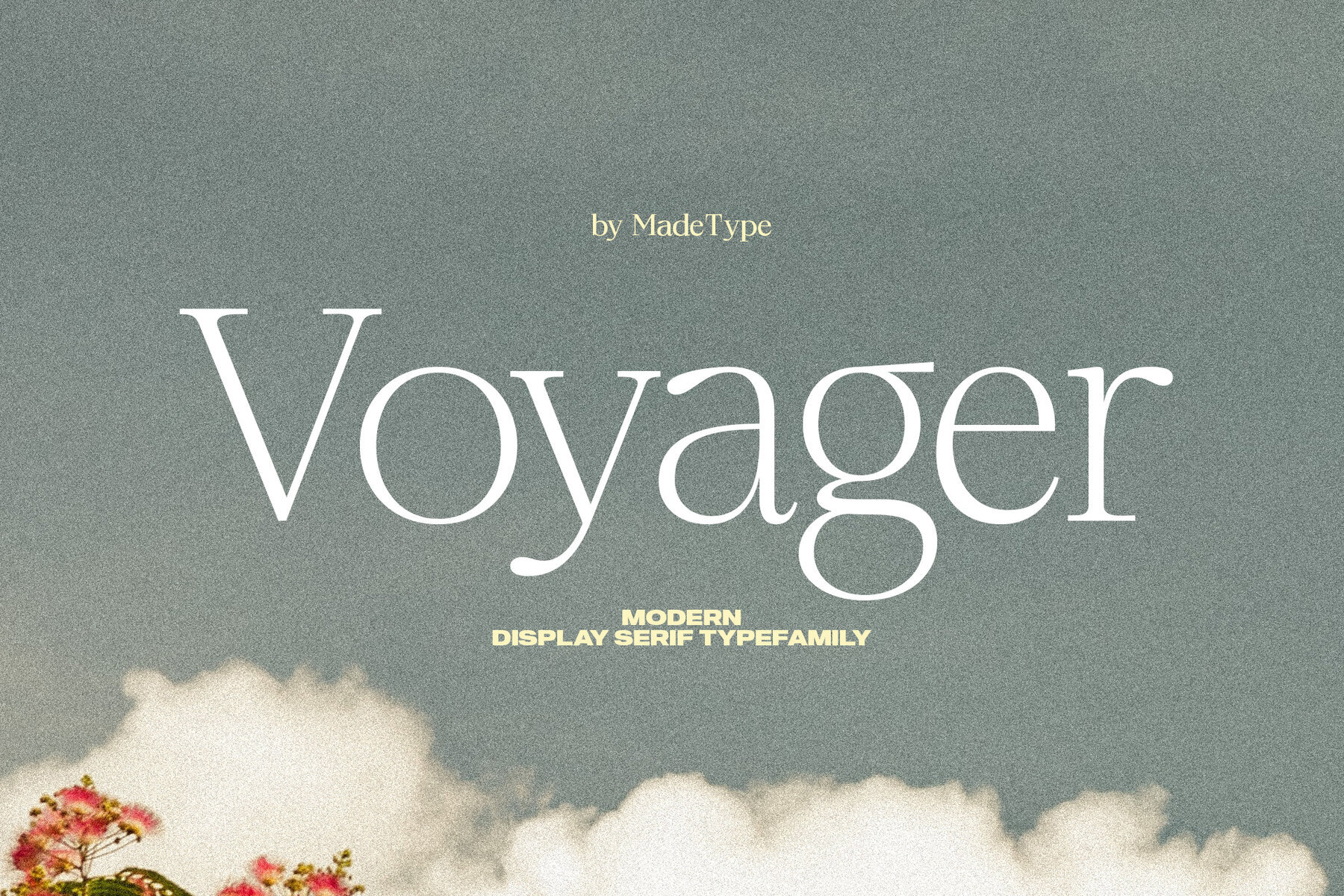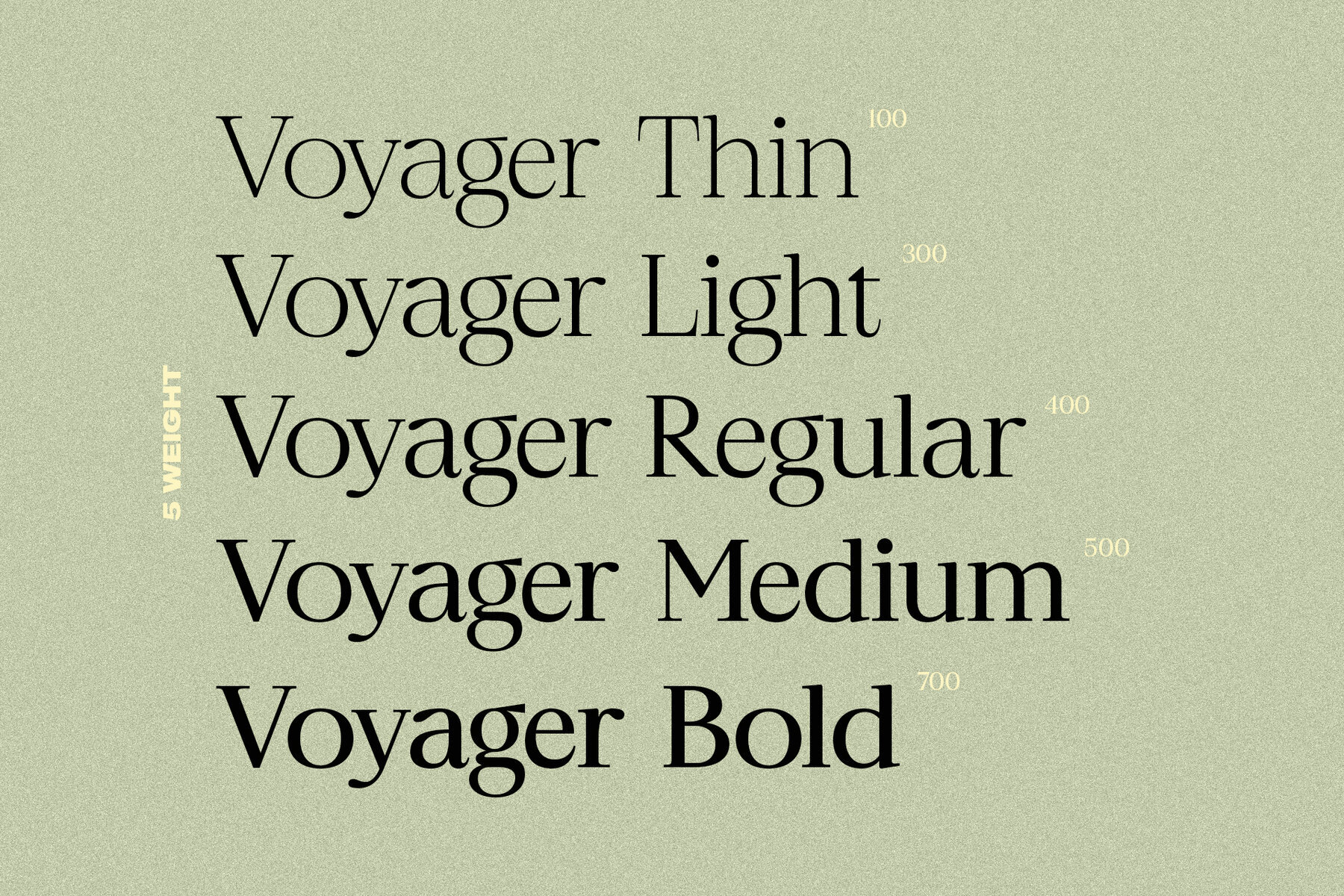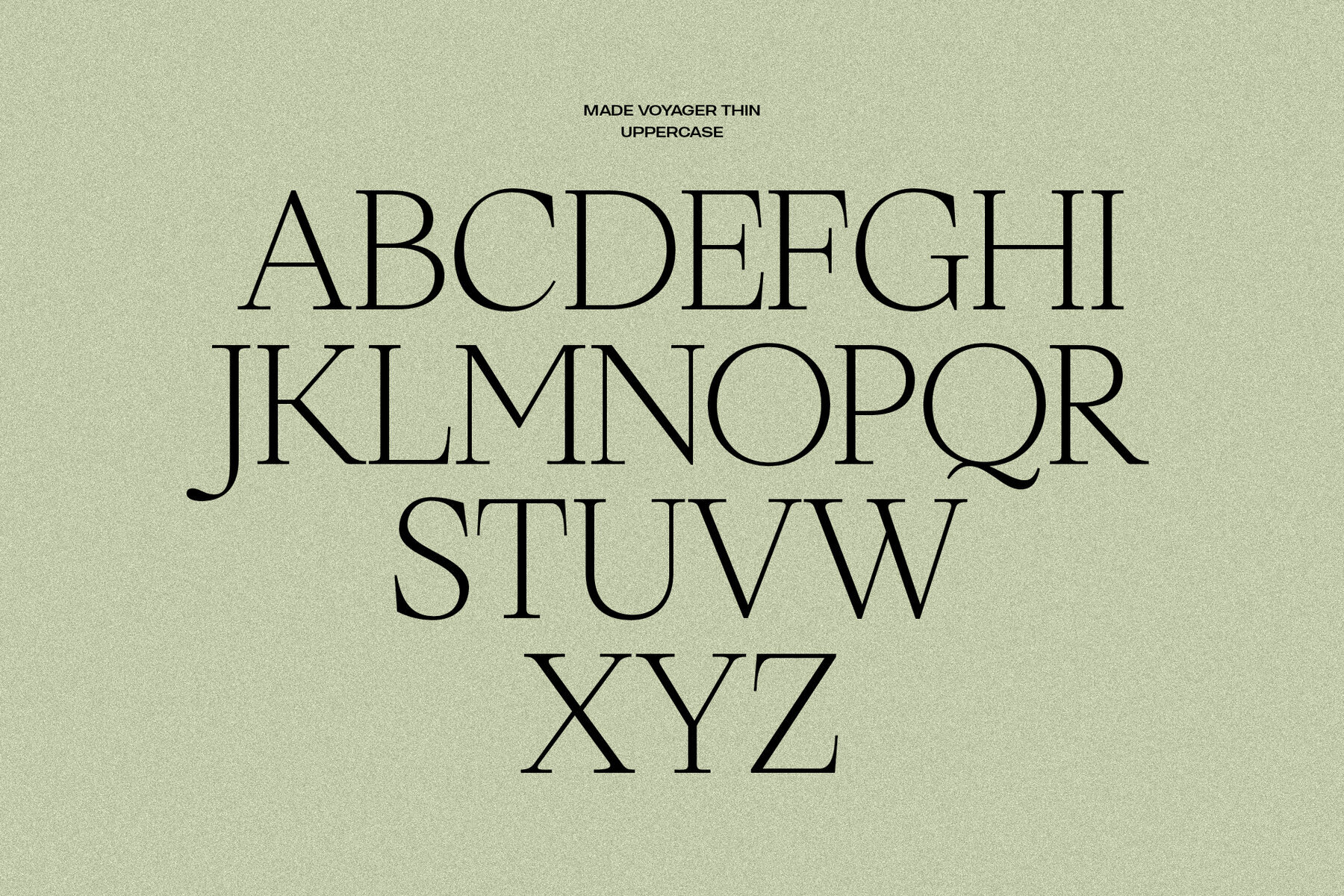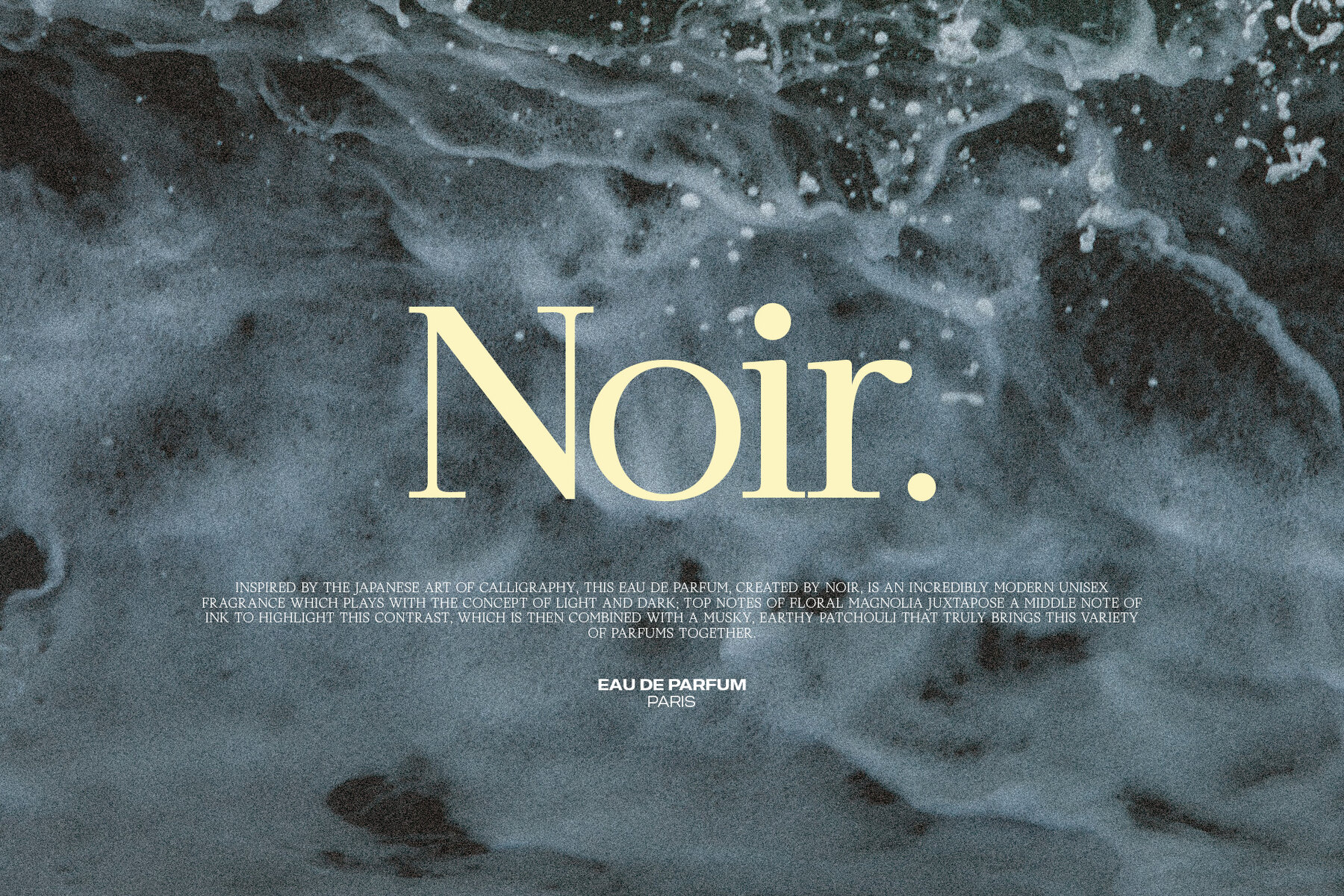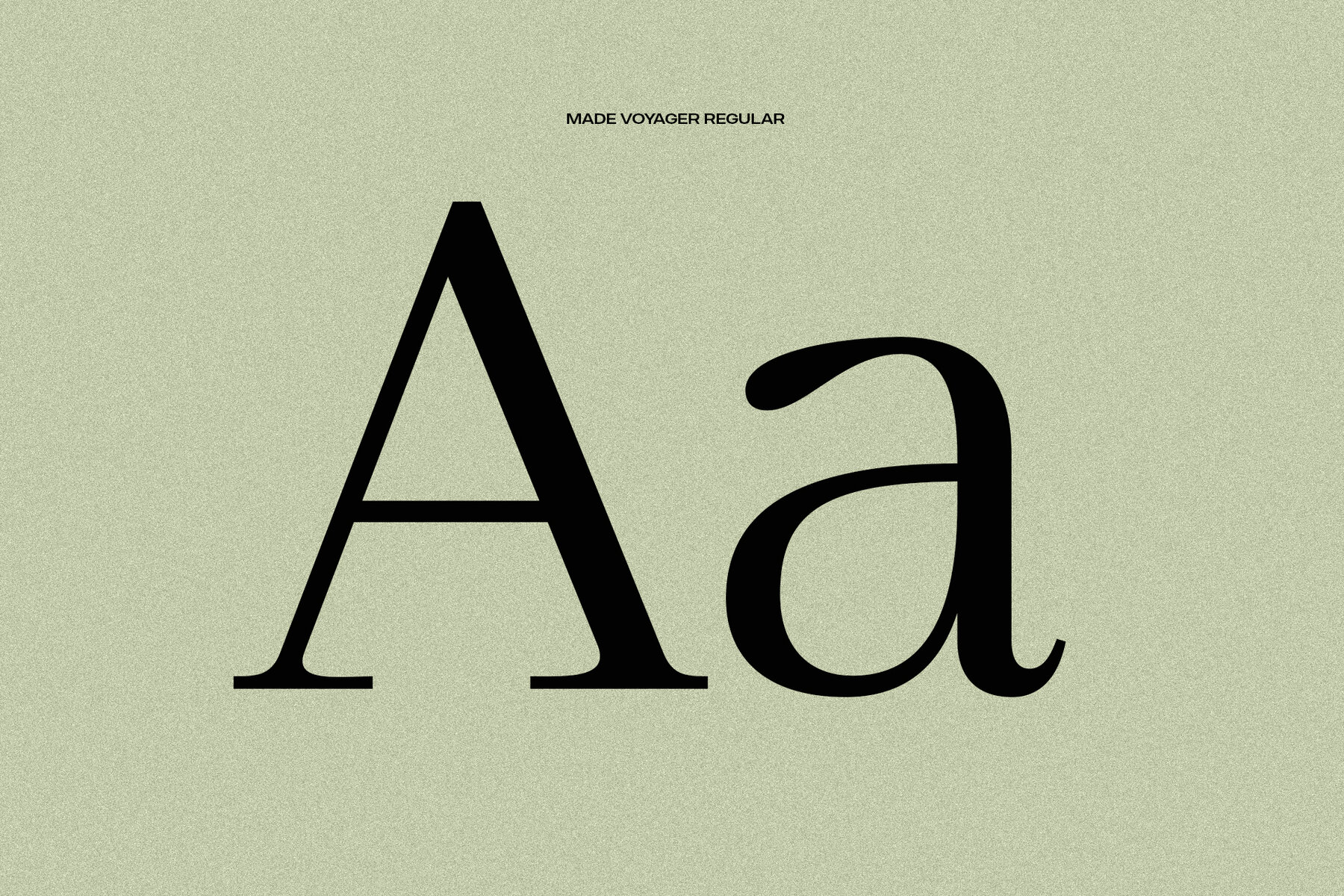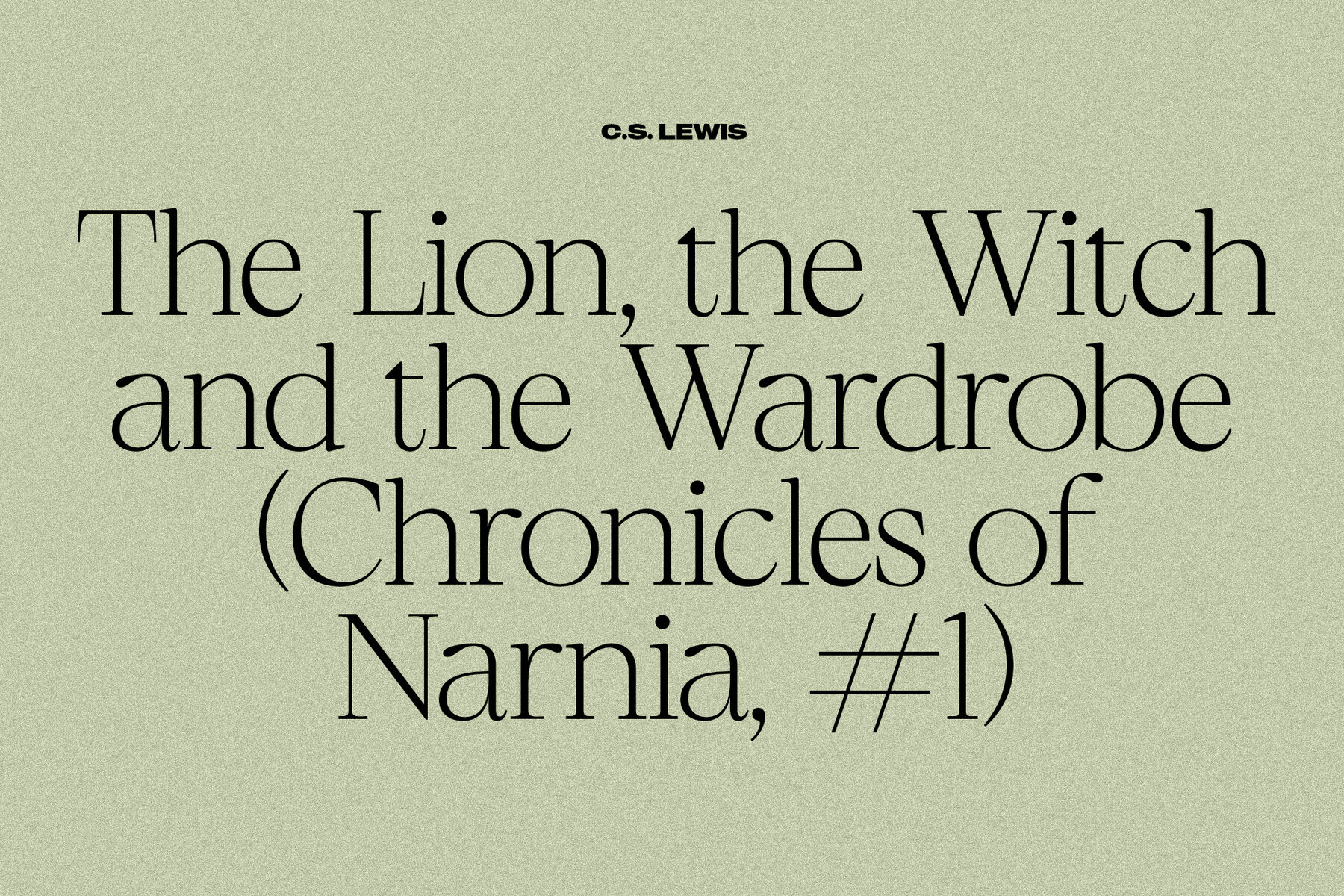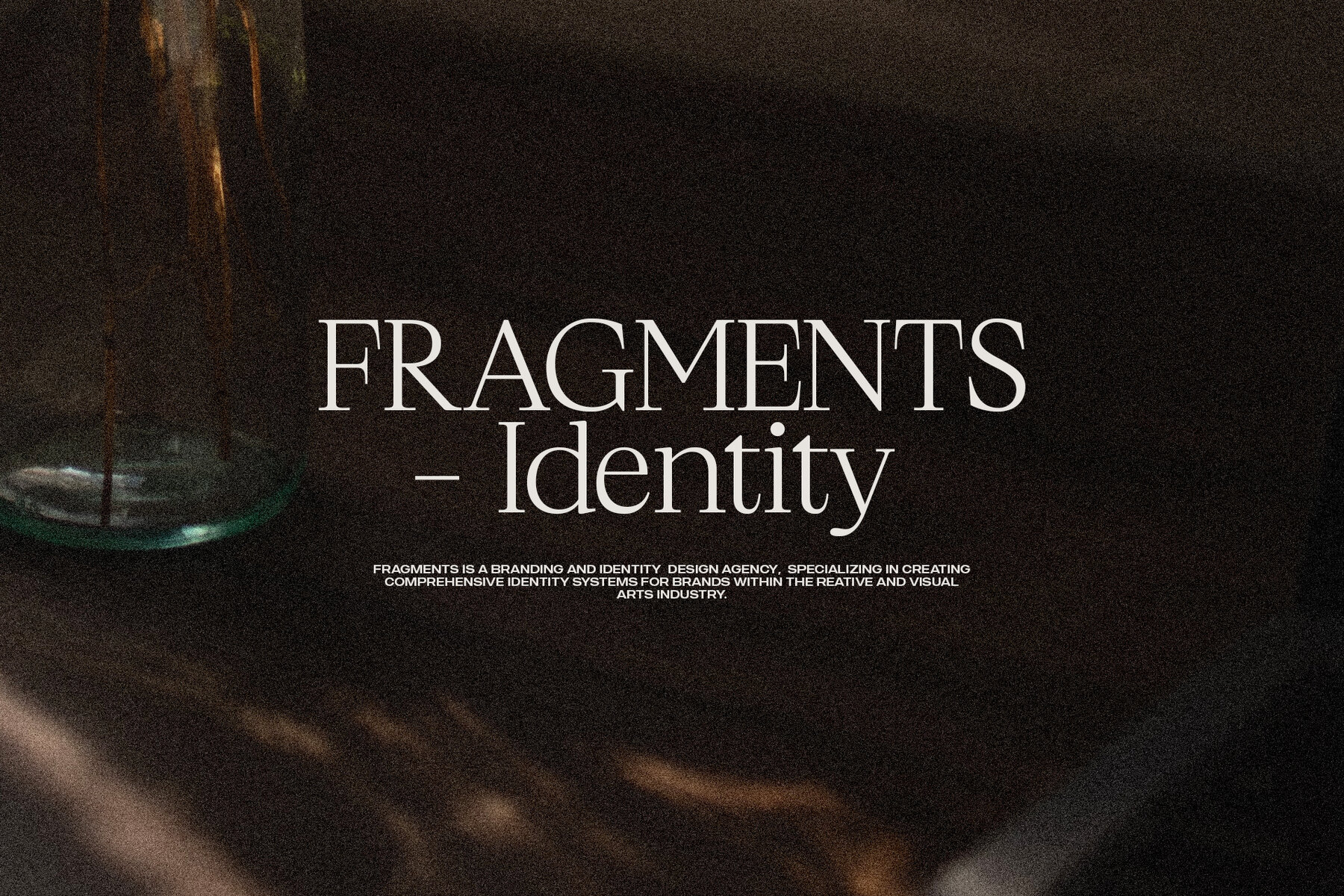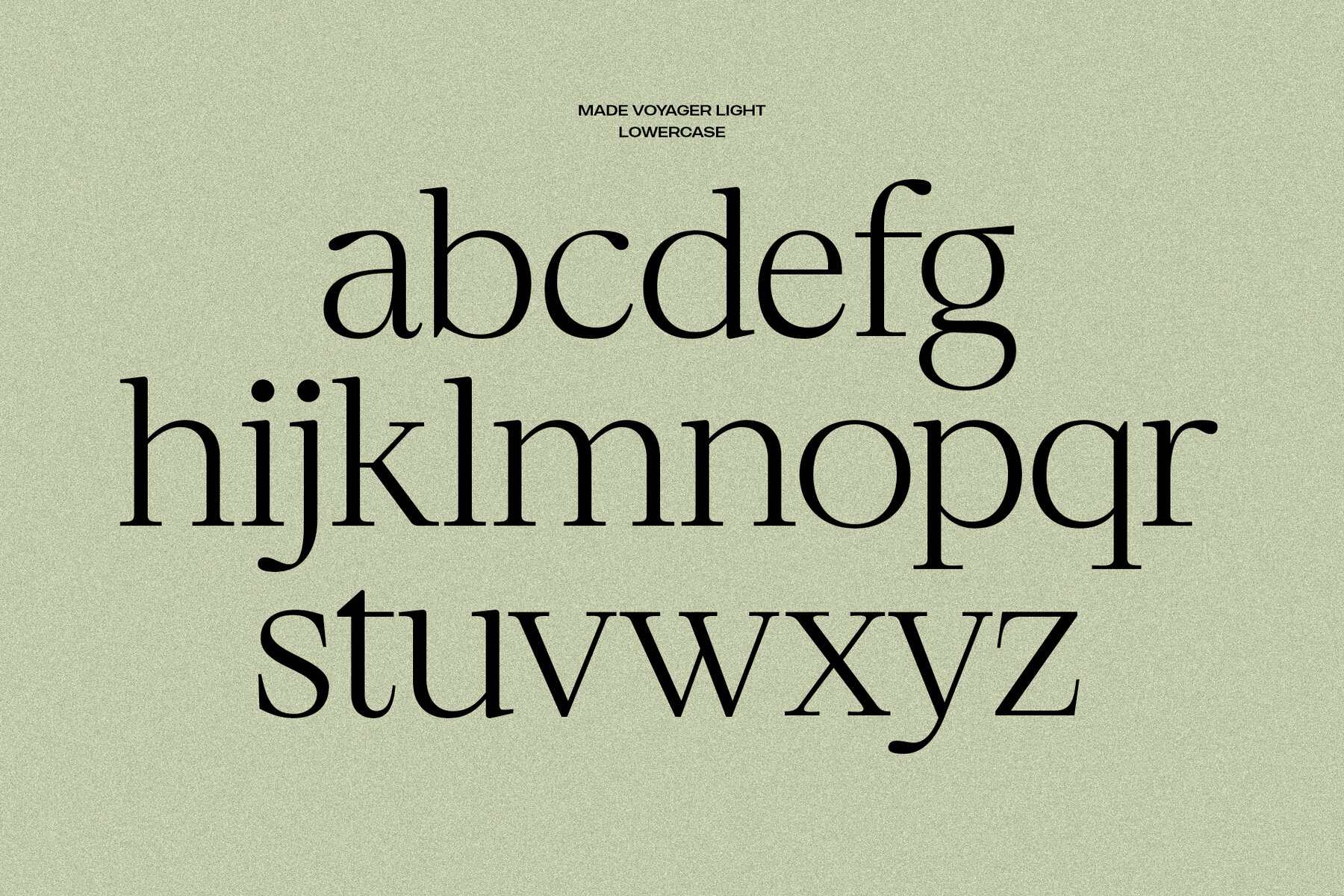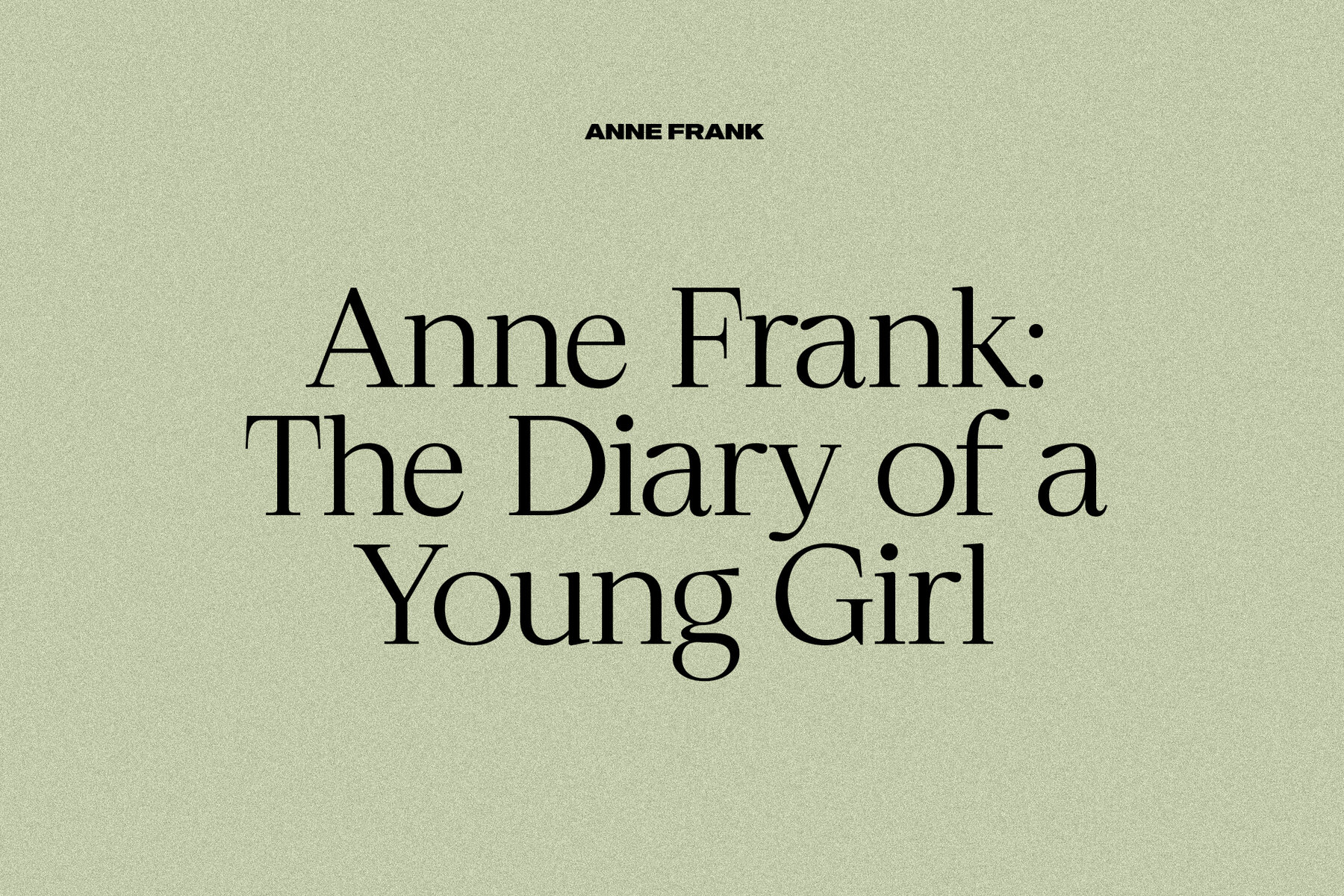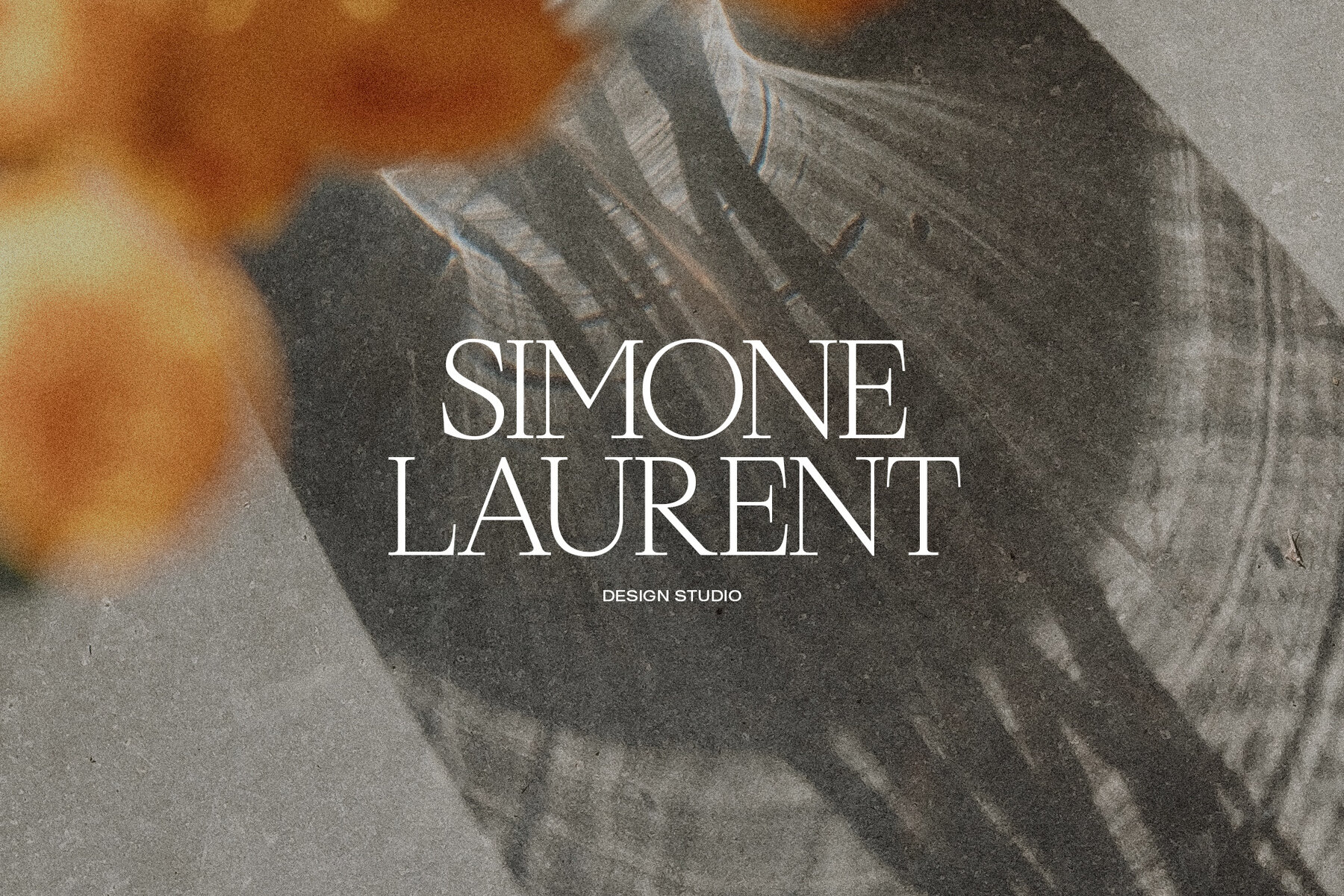
MADE Voyager Font
The MADE Voyager typefamily is a sophisticated modern display serif, expertly crafted for high-impact design projects.MADE Voyager: Modern Display Serif Typeface
In the world of typography, MadeType stands as a beacon of innovation and timeless elegance. Specializing in the crafting of serif and sans-serif typefaces, MadeType seamlessly fuses fashion-forward sensibilities with a retro flair. With a portfolio that ranges from sleek modern lines to curvaceous vintage str...